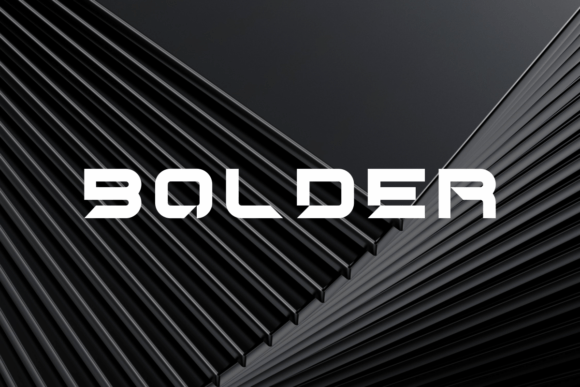
Behold Bolder, a font of the future, a universe of its own, a gateway to a realm where elegance and boldness collide. Its chiseled edges and sharp angles evoke a sense of power and strength, while the curves add a touch of grace and fluidity, creating a visual masterpiece that dances before your eyes.
Bolder, a display font, is a symphony of lines and strokes, composed by the maestro, Kiply Wagu, a visionary in the world of typography. With its bold and confident stance, Bolder transforms numbers into powerful statements, making them leap off the screen and demand attention. Its unique design makes it the perfect choice for headlines, posters, branding, and any design that demands impact and personality.
Step into the spotlight with Bolder, the font that commands attention. Its futuristic aesthetics and sci-fi vibe will propel your designs into the future, giving them an edge that sets them apart from the ordinary. Whether you're creating logos, posters, or website designs, Bolder will elevate your work to new heights, leaving a lasting impression on your audience.
Bolder's versatility is its superpower, effortlessly adapting to various design styles and themes. Its strong presence makes it ideal for bold statements, while its subtle curves add a touch of sophistication to more delicate designs. It's the perfect font for expressing your individuality, whether you're creating flyers, social media posts, or even merchandise.
With Bolder, you'll embark on a typographic adventure, where every letter, every number, every symbol tells a story. Its bold strokes and sharp angles will leave an imprint on your audience's minds, creating a connection that goes beyond words. So why settle for ordinary when you can embrace the extraordinary? Choose Bolder, and let your designs shine brighter than a supernova.